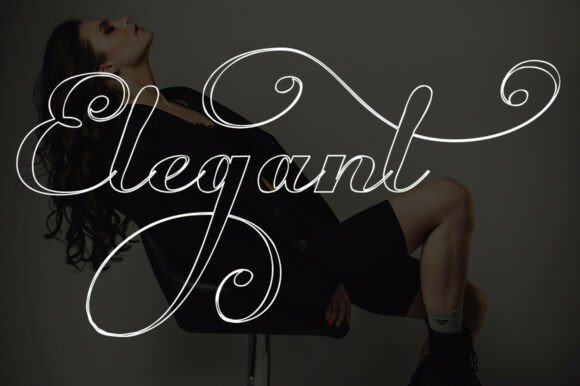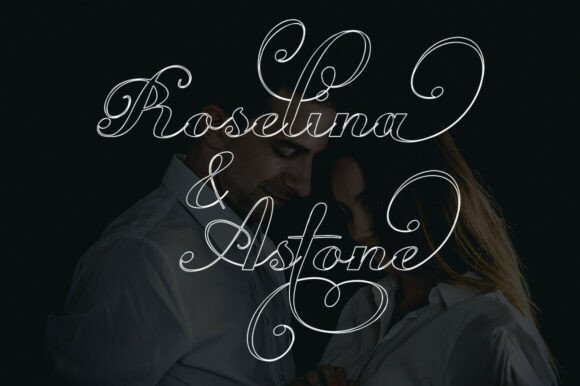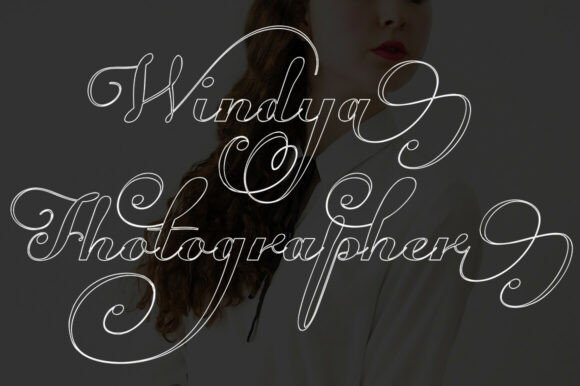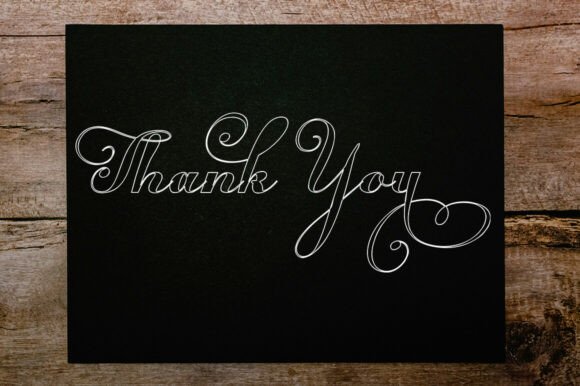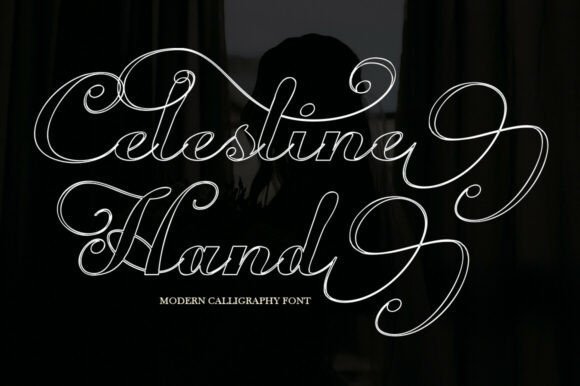
The Art of Romance: Unlocking the Magic of Celestine Hand Font
As a designer, have you ever found yourself lost in the thrill of a blank canvas, searching for the perfect font to bring your vision to life? For me, it was the moment I stumbled upon the elegant curves of the Celestine Hand Font. Its delicate swashes and poetic strokes whispered romance and refinement, transporting me to a world of timeless beauty.
The Celestine Hand Font is a luxurious calligraphy font that exudes a dreamy feel, perfect for wedding invites, brand identities, social media posts, or love letters. Its high contrast and beautiful strokes make it a valuable tool for designers seeking to add an extra layer of emotion to their designs. With its modern twist and PUA-encoded access to all glyphs, swashes, and alternate characters, the Celestine Hand Font is a true gem for creatives.
Celestine Hand Font Key Features
- Unique Characteristics: Celestine Hand Font features a unique, hand-drawn style with subtle imperfections, giving it a personal and organic feel.
Celestine Hand Font Review
Overall, I think the Celestine Hand Font has some great qualities that make it a beautiful addition to any design project. ✨
- Unique Touch: The font’s hand-drawn feel gives it a unique touch that’s perfect for creative and artistic projects.
- Customization Options: The font is highly customizable, allowing you to adjust the weight, style, and size to fit your design needs.
- Expressive Style: The font’s expressive style makes it perfect for headings, titles, and other design elements where you want to add a bit of flair.
- Readability: At smaller sizes, the font can be a bit difficult to read, especially in body text.
- Lack of Consistency: The font’s hand-drawn feel can sometimes lead to inconsistencies in letter spacing and shape.
Overall, I’d say the Celestine Hand Font is a great choice for designers looking to add a bit of personality to their projects. While it may not be the best choice for body text or complex typography, it’s perfect for creative and artistic projects where you want to add a touch of whimsy and flair.
Getting the Most Out of the Celestine Hand Font
Experiment with different font sizes, colors, and styles to create a unique and personalized look. Use the font in combination with other design elements, such as images and graphics, to add visual interest and depth to your design.
The Celestine Hand Font is ideal for use in invitations, greeting cards, and other personal stationery. It’s also suitable for use in social media graphics, blog posts, and other digital content where a more personal and creative touch is desired.
Does the Celestine Hand Font include any special features or ligatures?
Yes, the Celestine Hand Font includes a range of special features, including ligatures, swashes, and ornaments. These can be accessed using OpenType features in design software like Adobe Illustrator or InDesign.